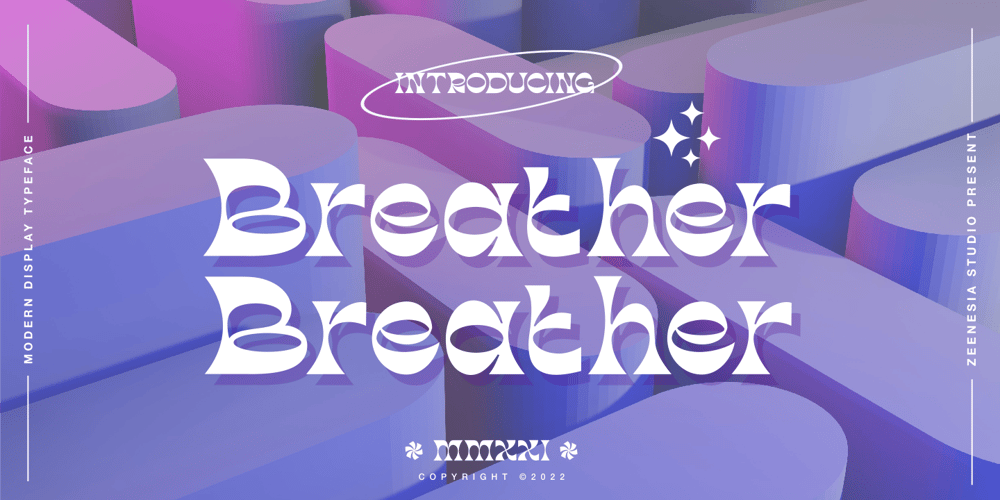
Breather Font Family was designed by Doni Purwoko and published by Zeenesia Studio. Breather contains 1 styles and family package options. Breather is a bold modern display font with serif style. It’s retro, bold, and playful. Perfect if you need a dose of fun in your project. This is a unique display typeface perfect for gorgeous logos & titles.